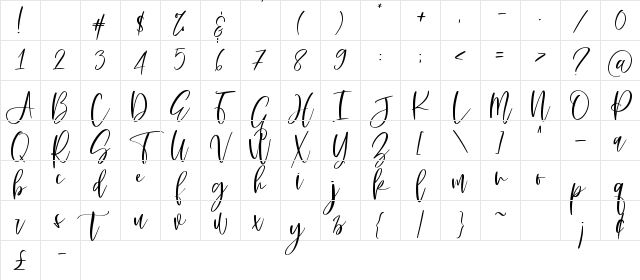
dancing moon script Regular Free Font
dancing moon script Regular
Designer: Abo Daniel 2019
Design Context for dancing moon script
dancing moon script flows with the natural rhythm of handwritten lettering, making it ideal for designs that call for warmth and personal expression.
Font Pairing: Combine dancing moon script with a simple geometric sans for maximum contrast - the tension between flowing curves and clean structure is a classic typographic pairing.